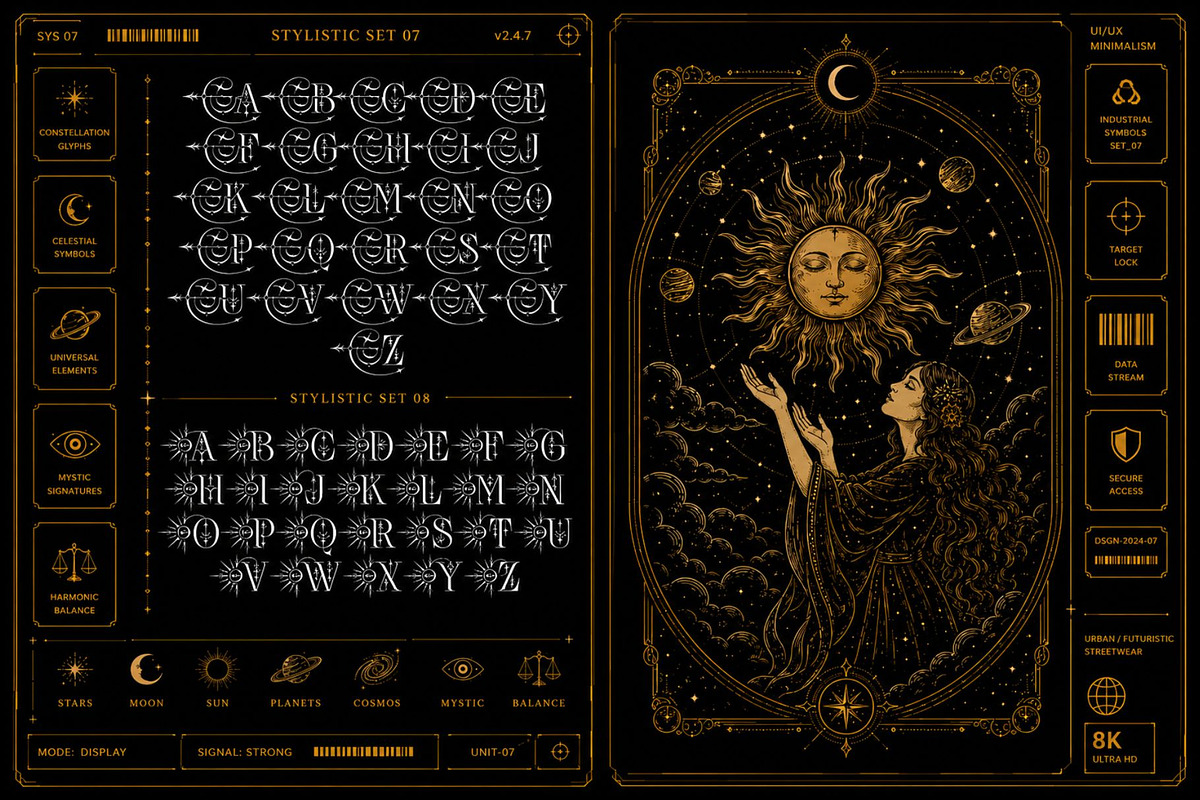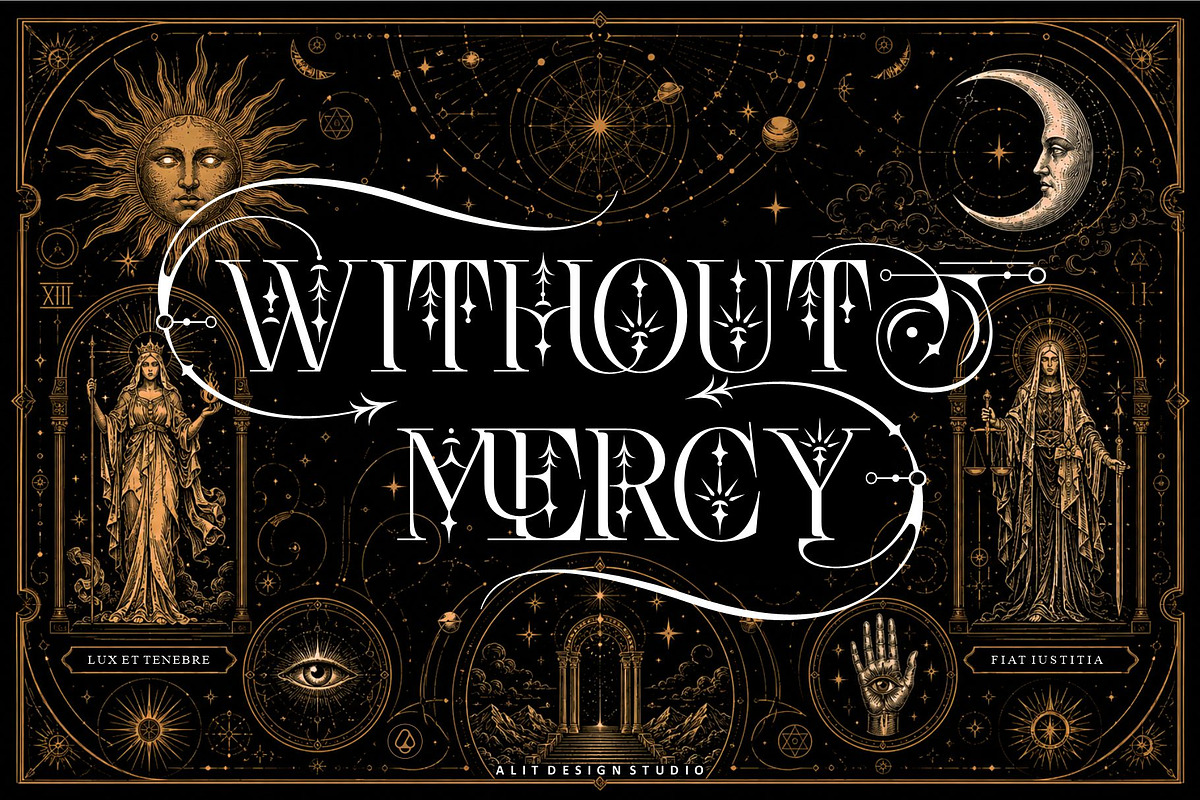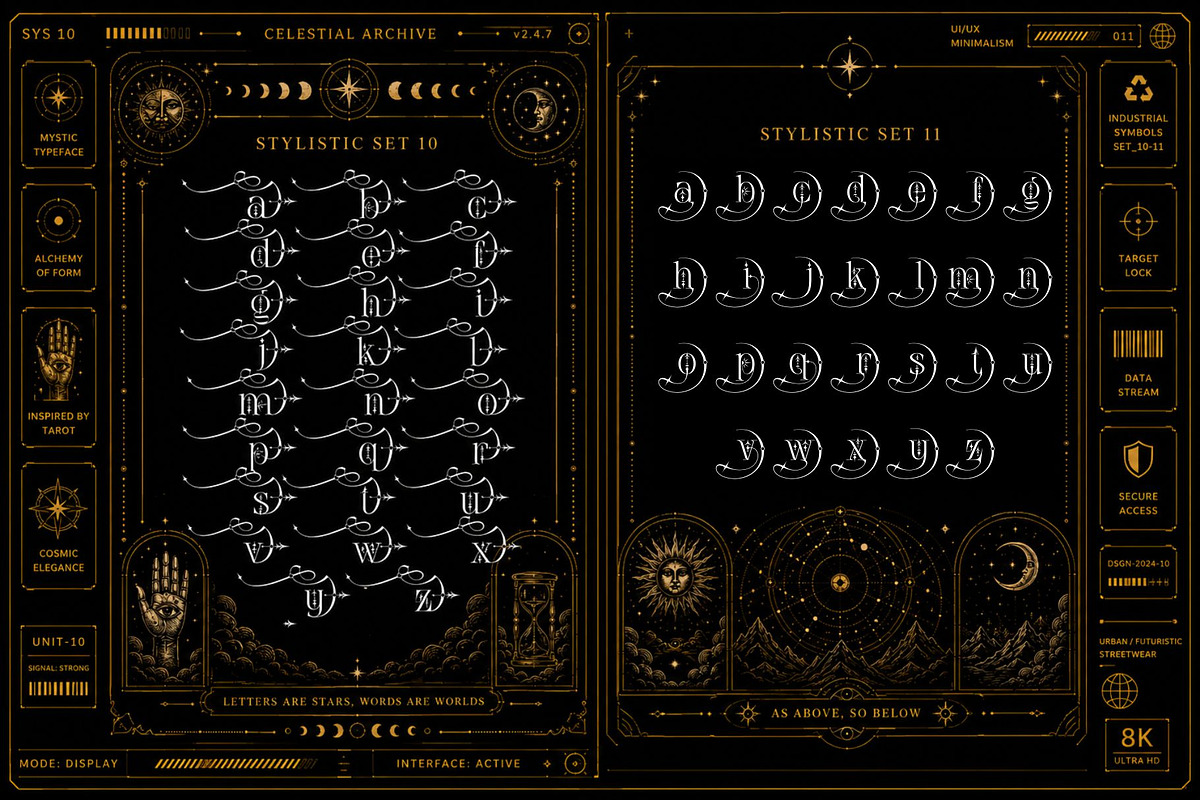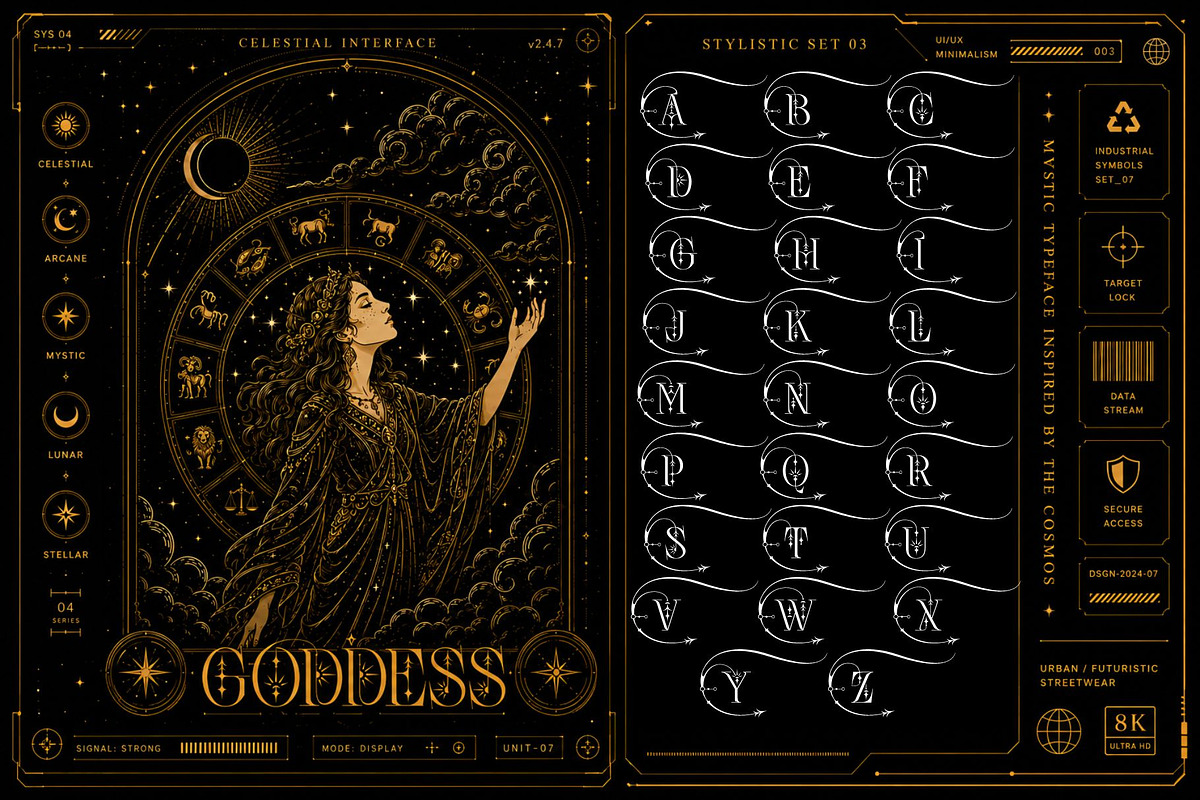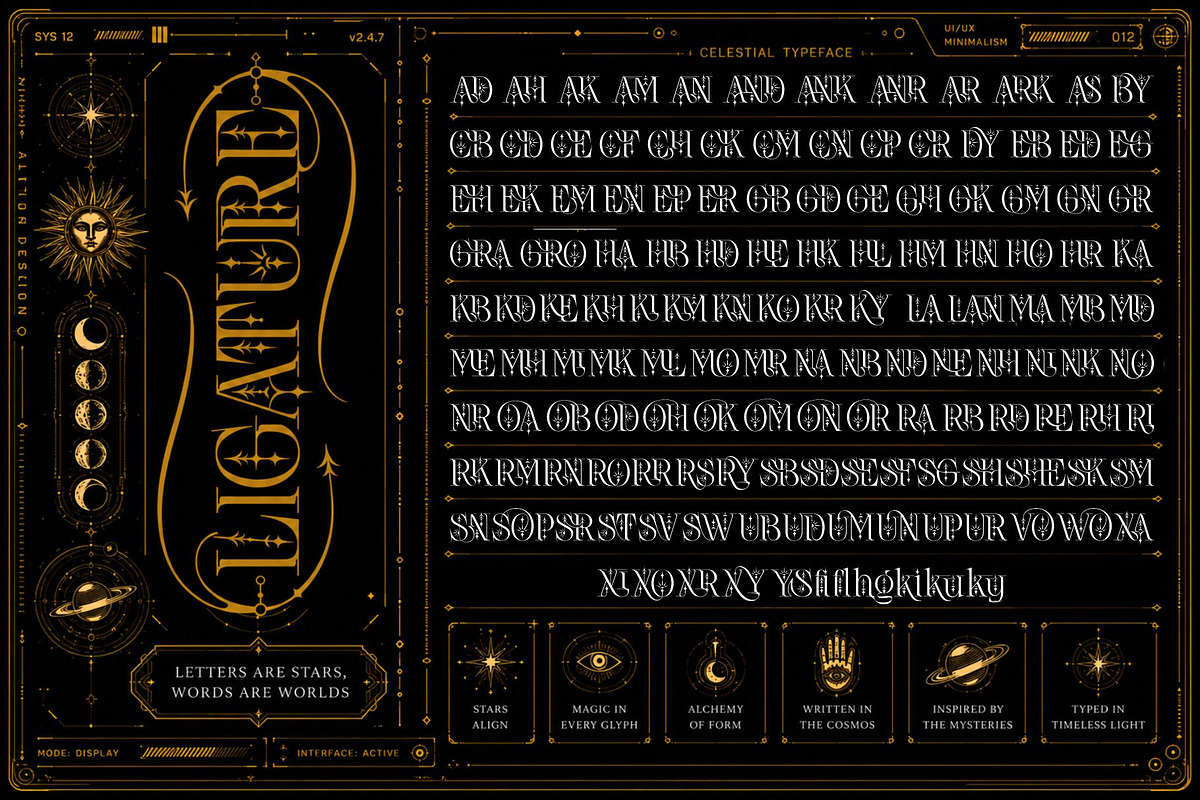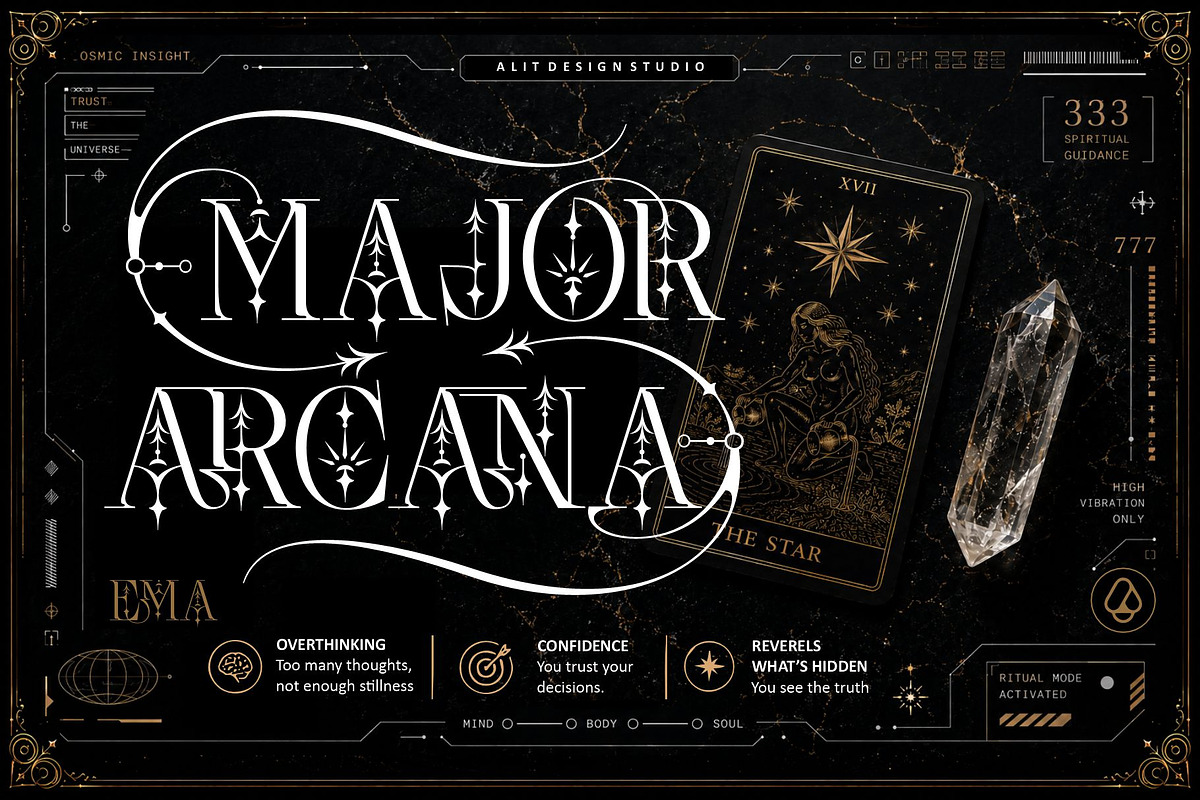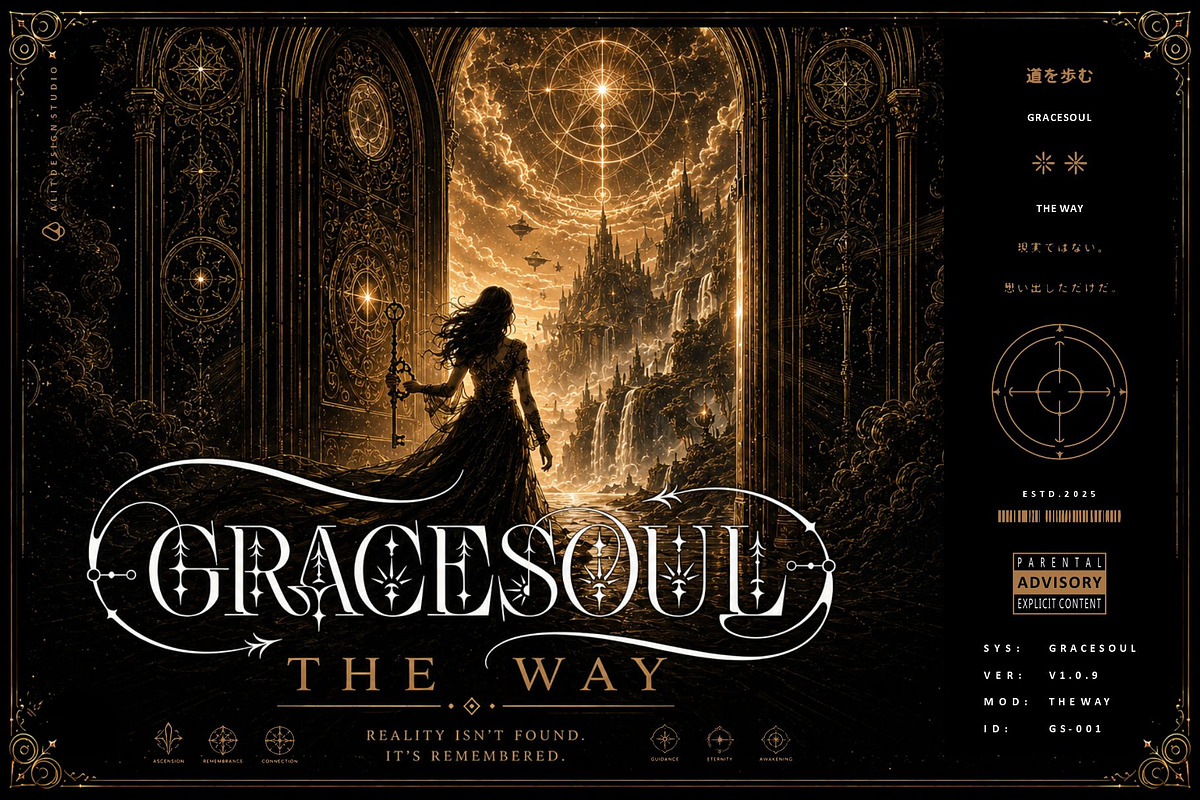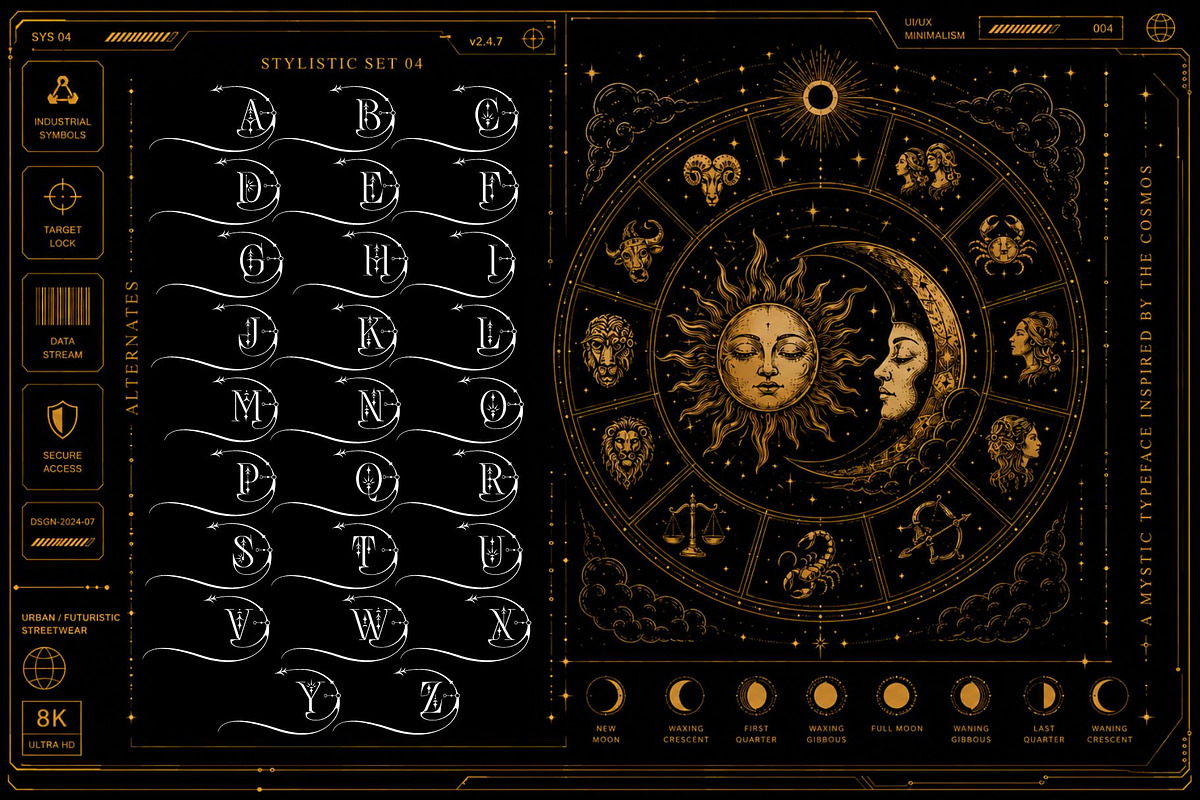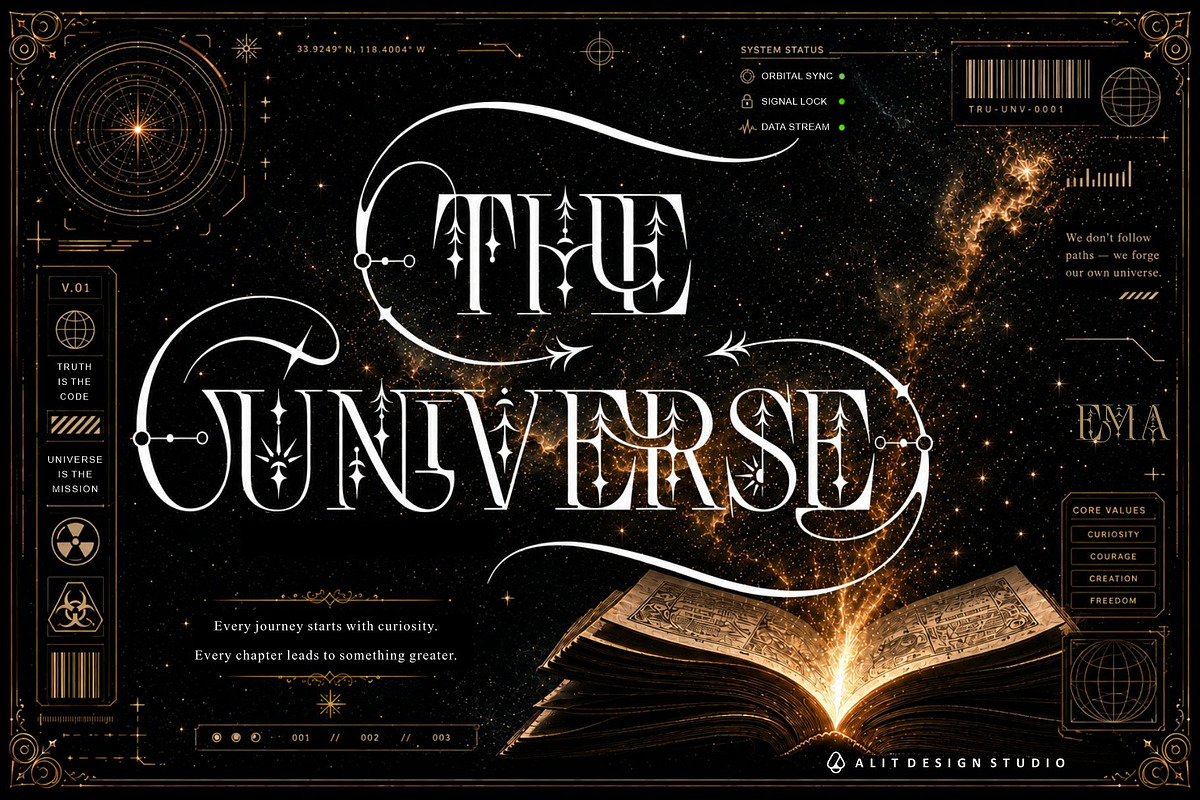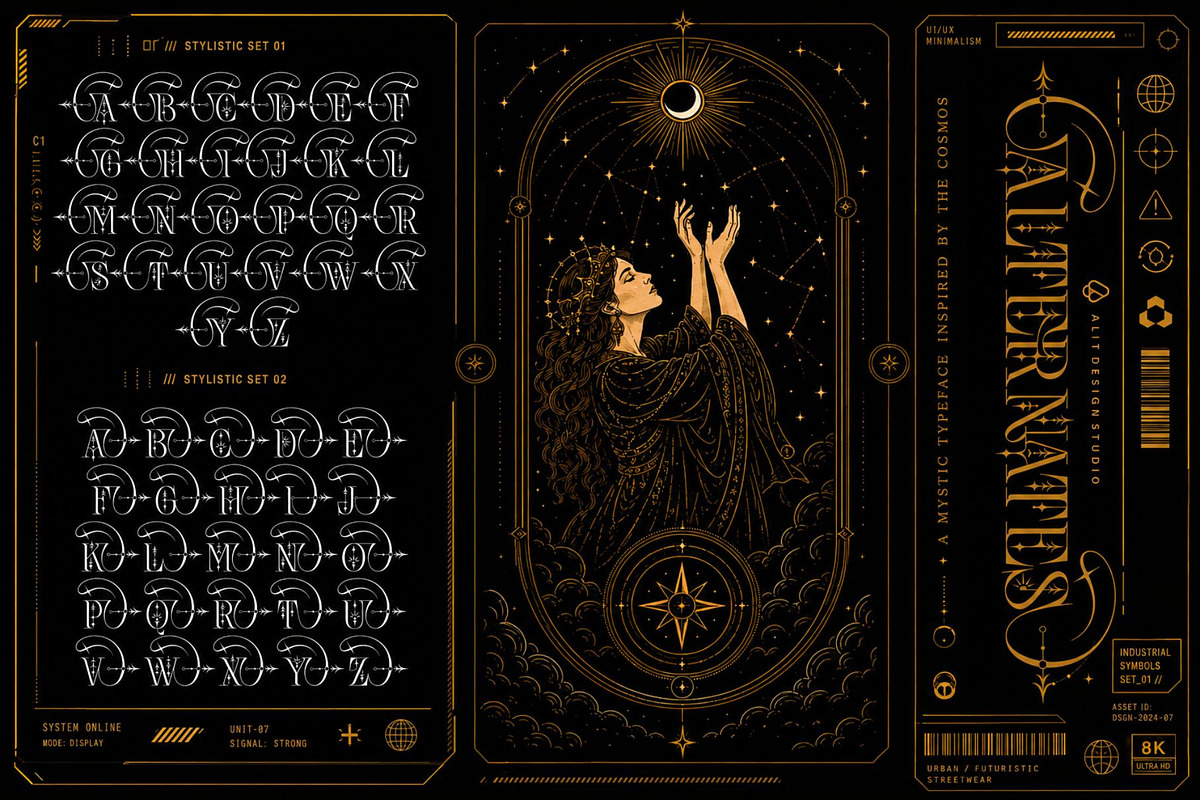
Nebulan Star Typeface
Nebulan Star Typeface: A Celestial Serif for Mystical Designs
Introduce your projects to a realm of boundless mystery with Nebulan Star Typeface, an exquisitely designed Bohemian Serif Font that draws its inspiration from the enchanting depths of astrology, the magic of the night sky, and ancient esoteric lore. Designed by Alit Design Studio, this typeface seamlessly blends classical elegance with ethereal, cosmic energy, creating a truly unique and mystical visual experience.
Nebulan Star is defined by its high contrast, sophisticated structure, and breathtakingly intricate decorative elements.Look closely and you will discover that the standard serifs have been transformed; many letterforms feature elegant swashes and delicate star-like terminals that sparkle with celestial light. Characters like 'A', 'E', and 'H' feature unique horizontal crossbars integrated with star icons, adding an unmistakable touch of the magical and the arcane. As seen in the stunning posters showcasing themes like "THE UNIVERSE" and "MAJOR ARCANA", this font is designed to command attention and weave a story of wonder and intuition.
This typeface is not just a font; it is a complete typographic universe. Nebulan Star is equipped with a staggering 921 Glyphs, offering unparalleled creative freedom. It boasts an incredibly extensive collection of Alternates, Ligatures, and Stylistic Sets (SS01 - SS09), allowing you to customize your text to perfection. With features including dramatic decorative arrows, ornamental swashes (visible in the "TAURUS" and "BOHO MAGICAL" previews), intricate character pairs, and multiple stylistic variations for almost every letter (as seen in the detailed glyph charts, Nebula Star 14.jpg, Nebula Star 7.jpg, and Nebula Star 8.jpg), you can craft headlines and logos that are as fluid and magical as a flowing constellation.
Nebulan Star is the ultimate choice for designers working on projects that require a touch of elegance, mystery, and spiritual depth.
Logos & Branding: Especially for brands in astrology, tarot, holistic wellness, jewelry, high-end fashion, and artisan products.
Editorial Design: Exquisite book covers (like an ancient grimoire), magazine headlines, and poetry volumes.
Poster & Event Design: Concert posters for mystical/bohemian acts, event branding, and art prints.
Social Media: Attention-grabbing headlines, quotes, and spiritual guidance content (as showcased in the "333 Spiritual Guidance" preview).
Packaging: Luxury packaging that speaks of secrets, quality, and ancient wisdom.
921 Glyphs
Uppercase & Lowercase (Both highly decorative)
Numbers, Punctuation, and Symbols
Extensive Alternates and Stylistic Sets (SS01-SS09)
Vast Collection of Ligatures (Standard and Discretionary)
Decorative Swashes and Arrows
Unlock the "Letters Are Stars, Words Are Worlds" magic. Embrace the "Celestial Energy" and "Boundless Mystery" of Nebulan Star Typeface today.